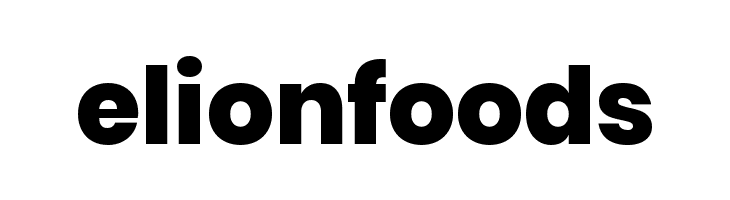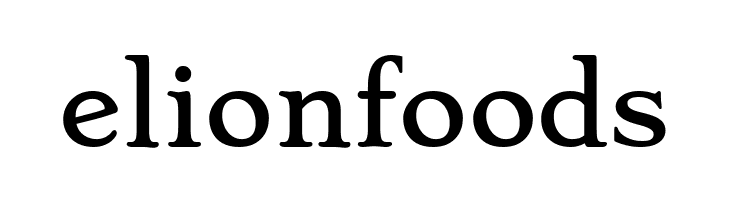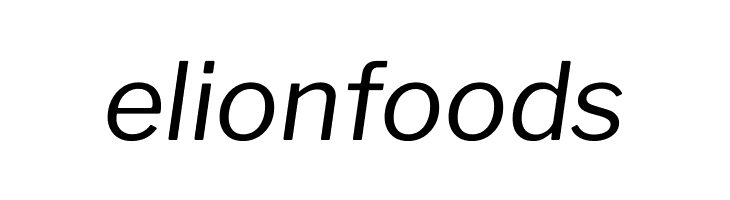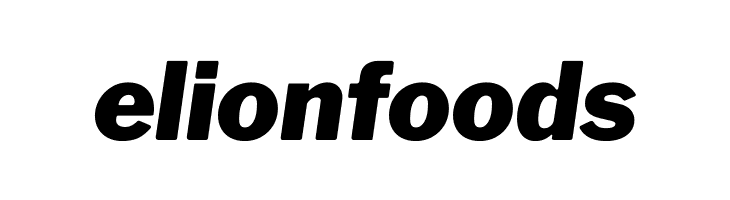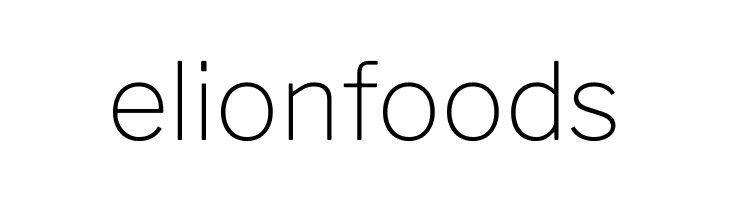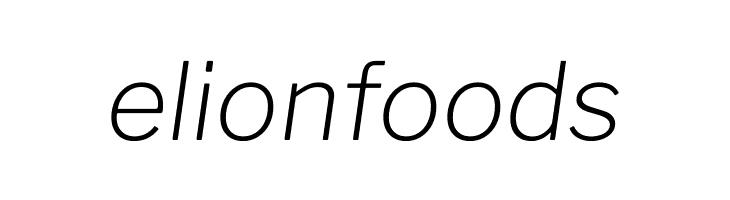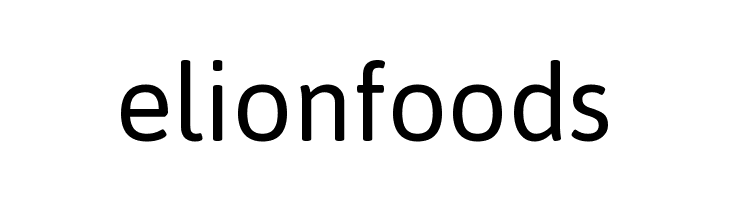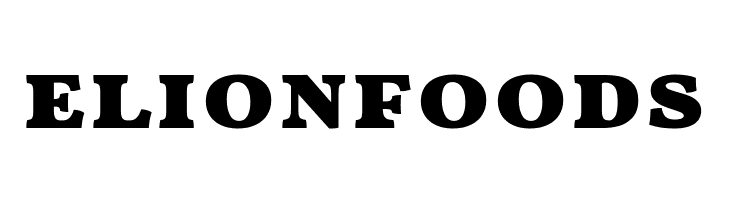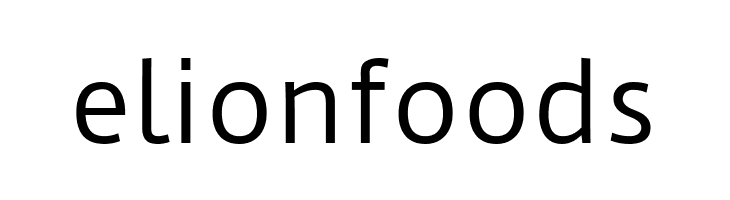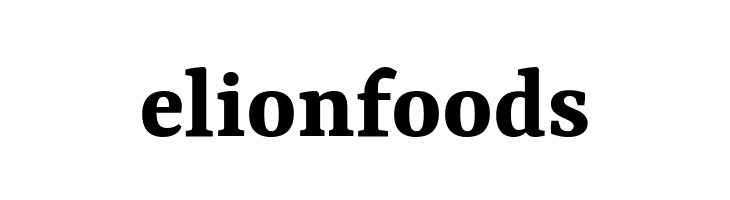
A bold, geometric sans-serif typeface with a modern and clean design.
A classic serif typeface with elegant curves and moderate contrast.
A modern, italicized typeface with clean lines and excellent readability.
A bold, italic typeface with high contrast and modern appeal.
A clean, modern typeface with thin, geometric strokes and balanced proportions.
A sleek, modern extra-light italic typeface with elegant slant and minimalistic design.
A clean, modern sans-serif typeface with excellent readability.
A bold, serif typeface with strong strokes and classic serifs.
A clean, modern sans-serif typeface with balanced proportions and excellent readability.
A bold serif typeface with strong, authoritative characters and classic elegance.